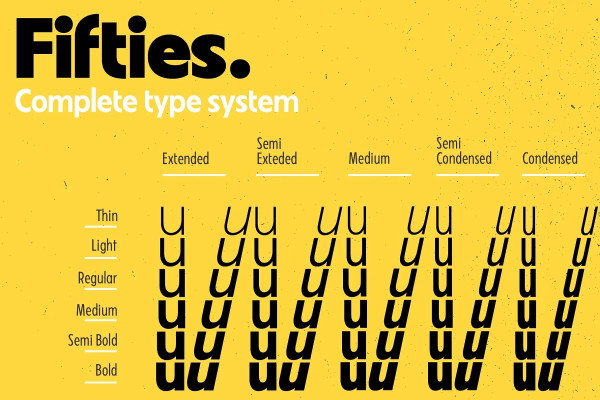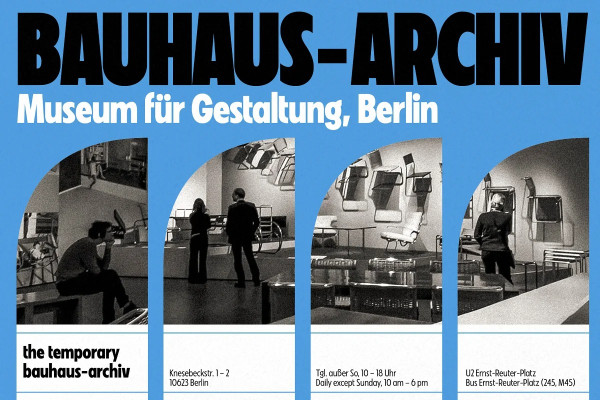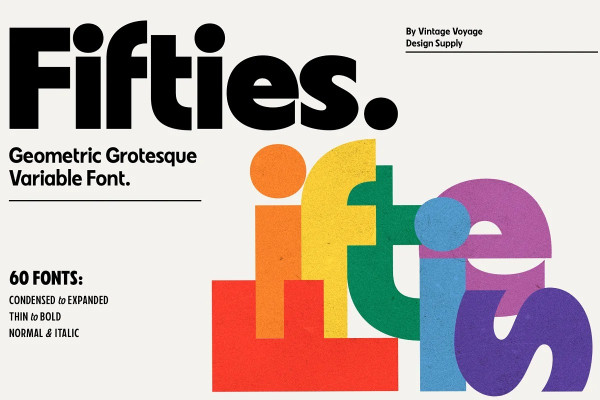
Fifties Font
Fifties Font is a mix of classic geometric and a bit of humanistic grotesque. The goal was to create the font for present with look to the past. In other words, I tried to came back the Modernism aesthetics of XX century into nowadays. The result gives you 60 styles including Italic (Slanted). Your typography may be airy and elegant with Expanded Thin, catchy and expressive with Condensed Bold or dynamic and sharp with Expanded Bold Italic. You will find your way to use this family certainly. Theatre posters or party flyers, vintage t-shirt or modern web service, movie titles or magazine header and even infographic – Fifties will suit you everywhere. You may use the completed styles or may use a Variable Font. To make it as you want to.